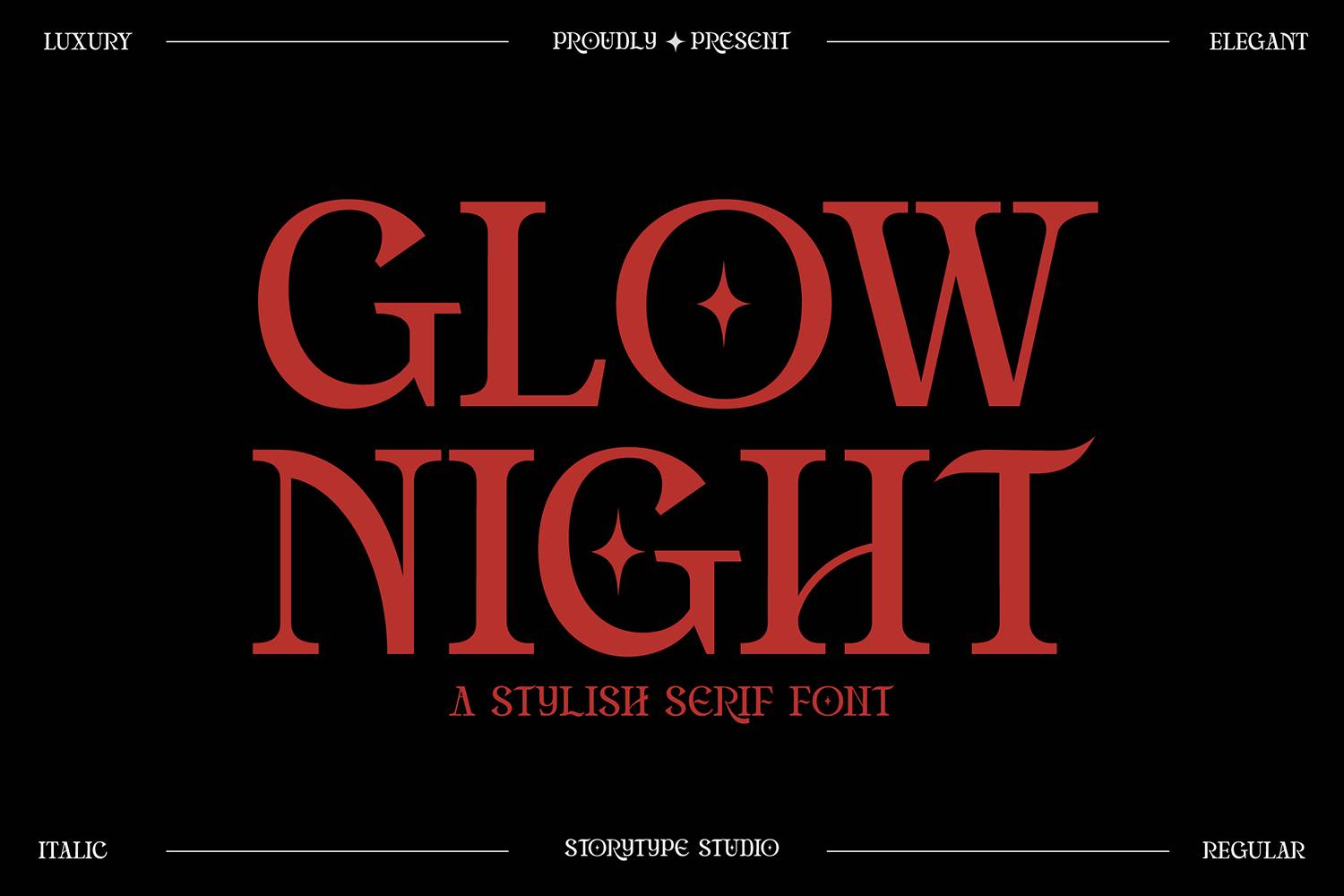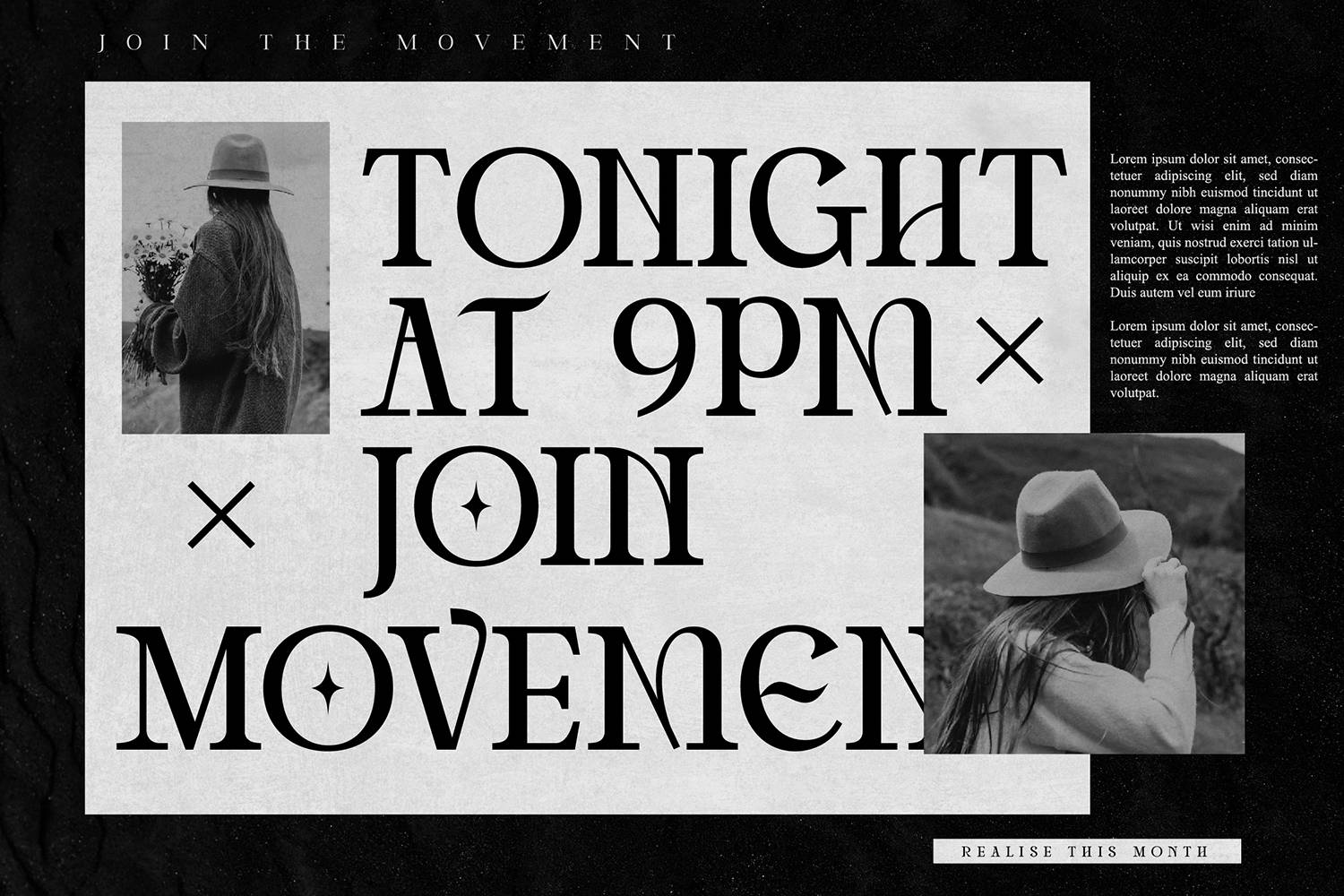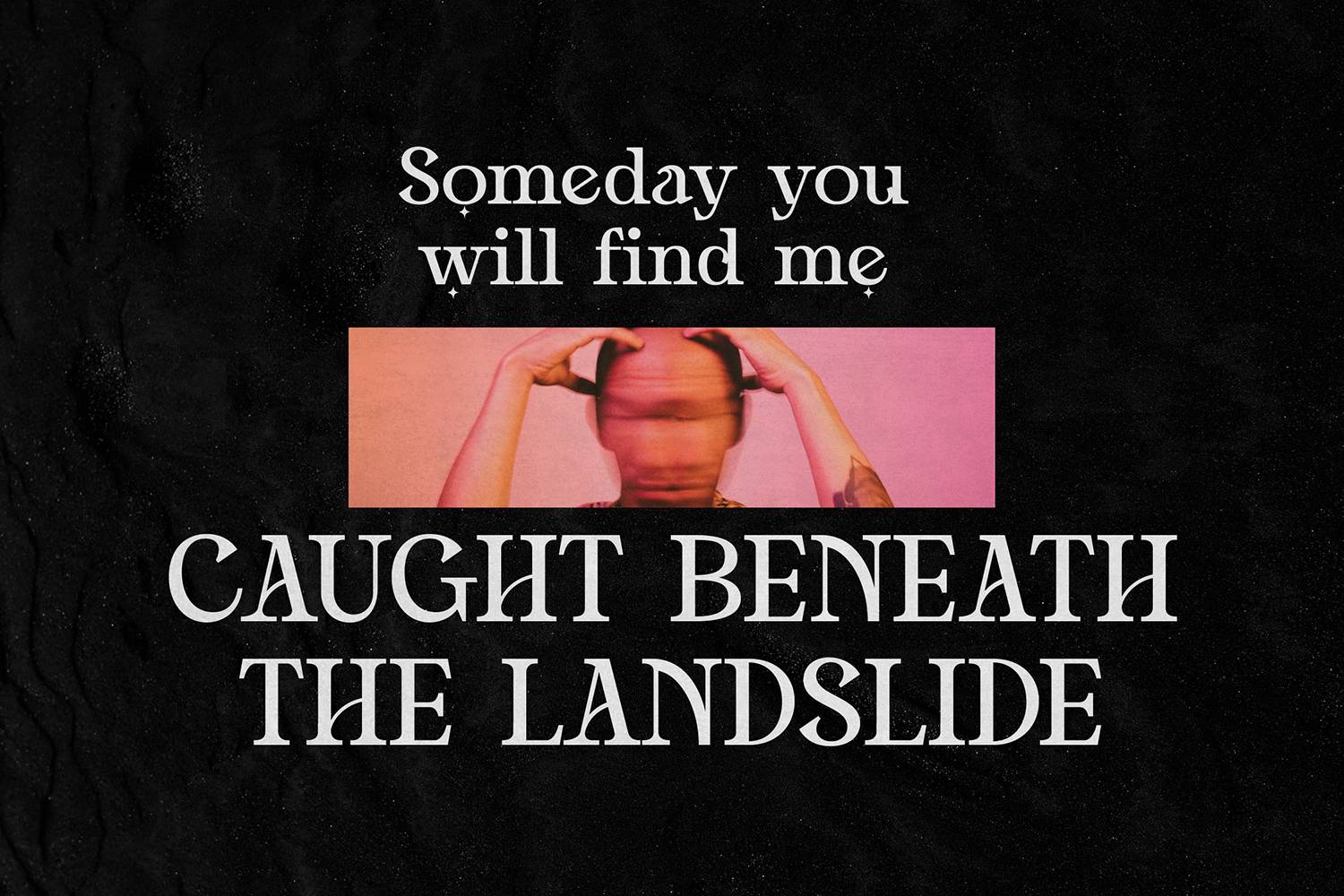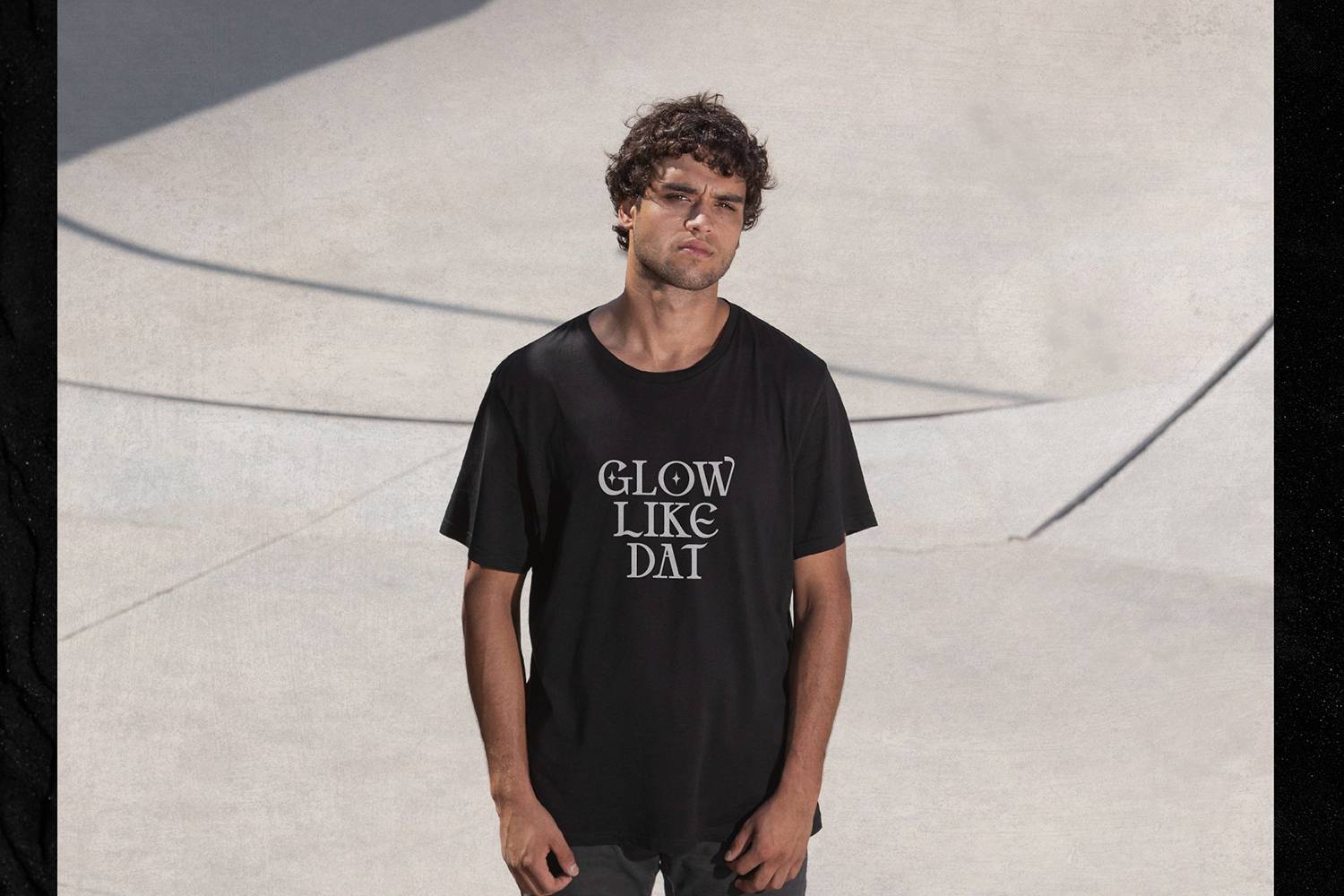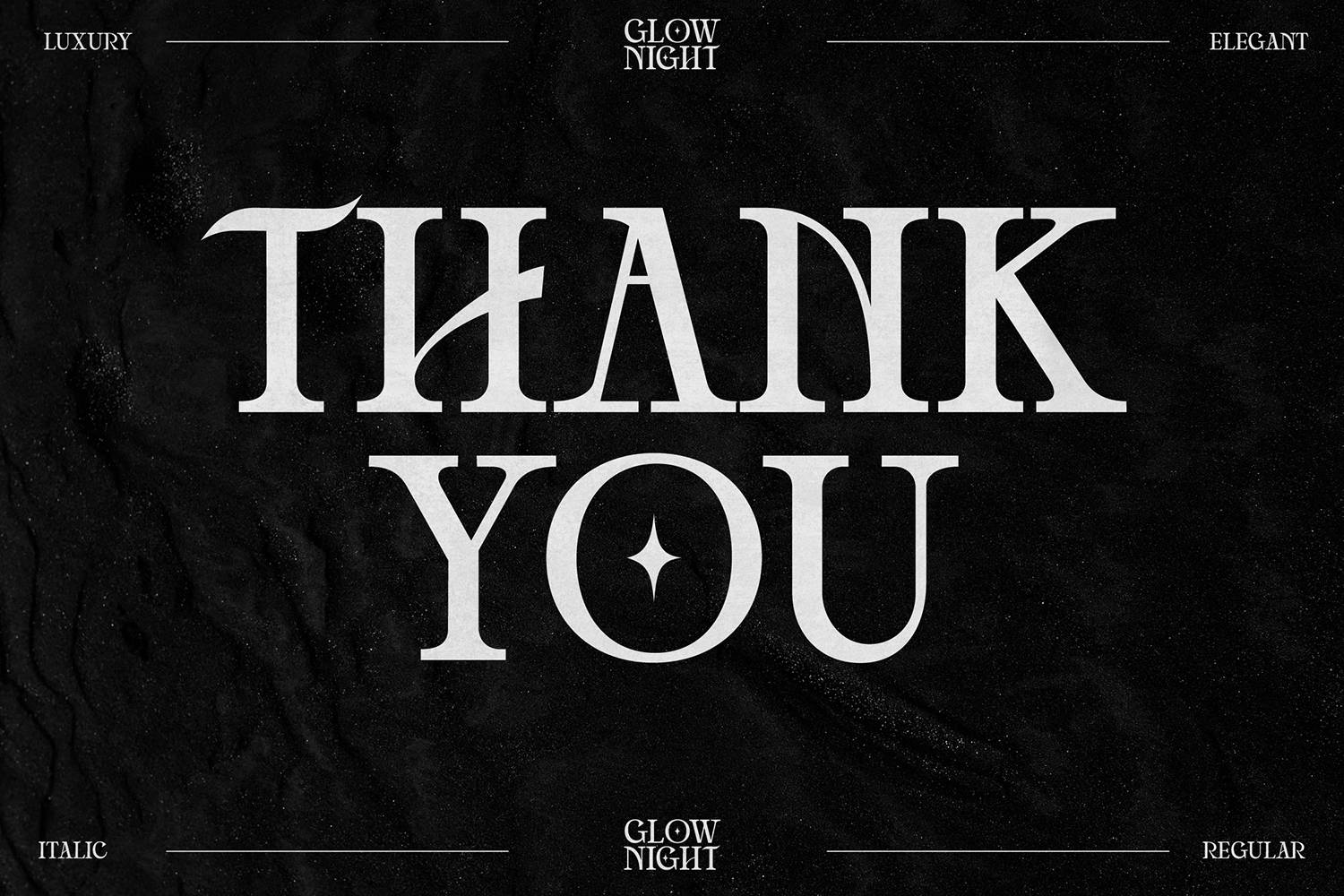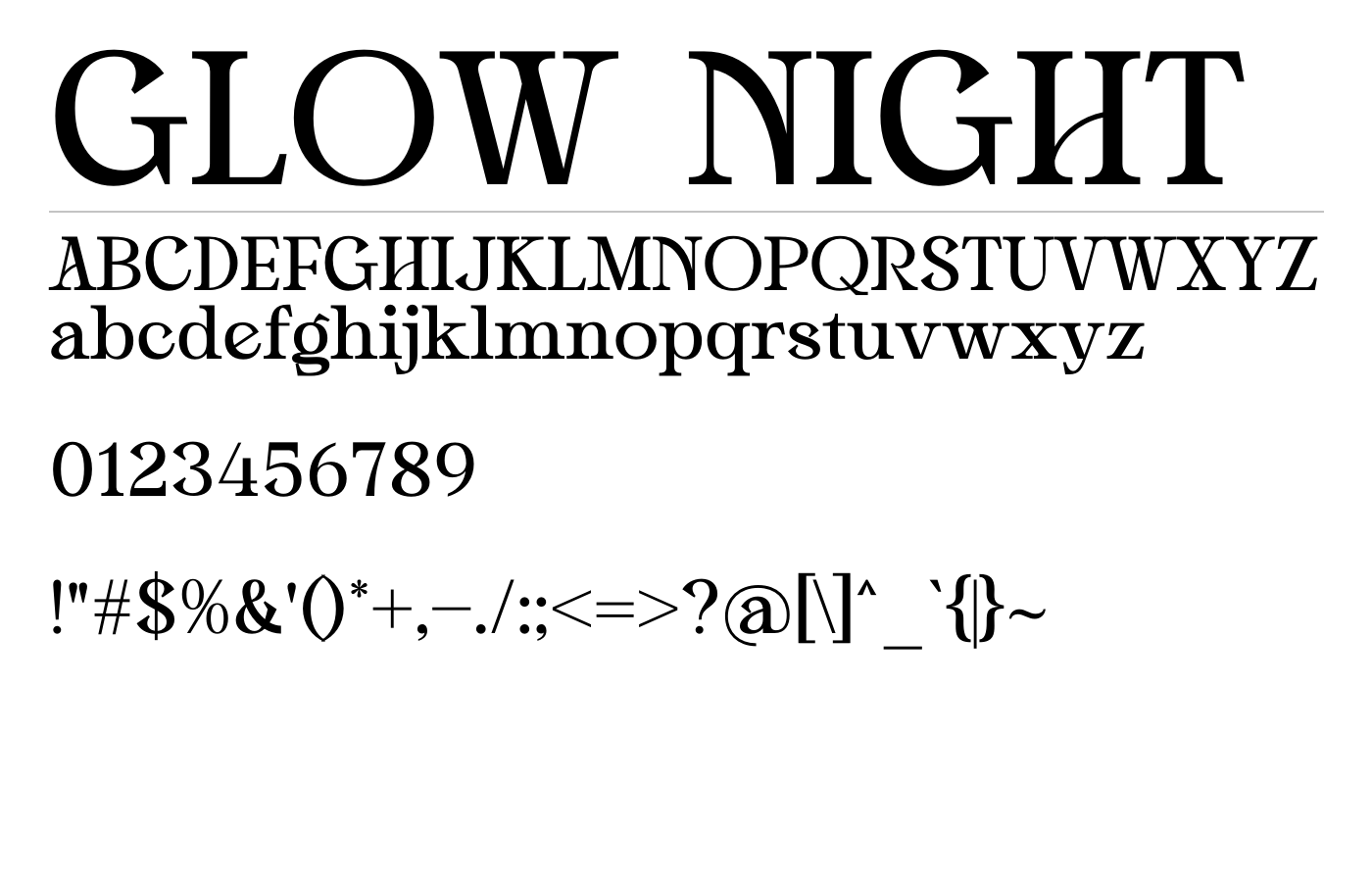
Glow Night is a refined serif font with a classic, elegant feel, featuring sharp, high-contrast strokes and distinctive bracketed serifs. Its balanced proportions and unique letterforms give it a sophisticated yet approachable personality, making it ideal for luxury branding, editorial headlines, and stylish packaging. This font works well where a timeless, polished look is desired to convey quality and professionalism.
Glow Night Font